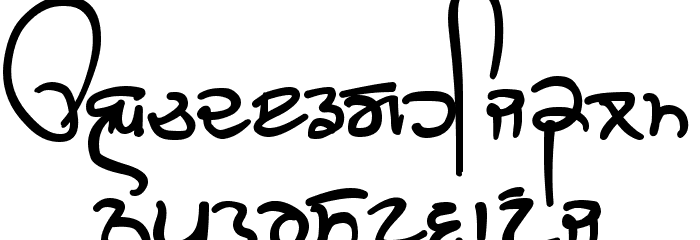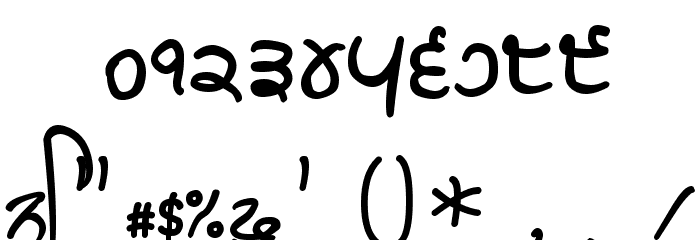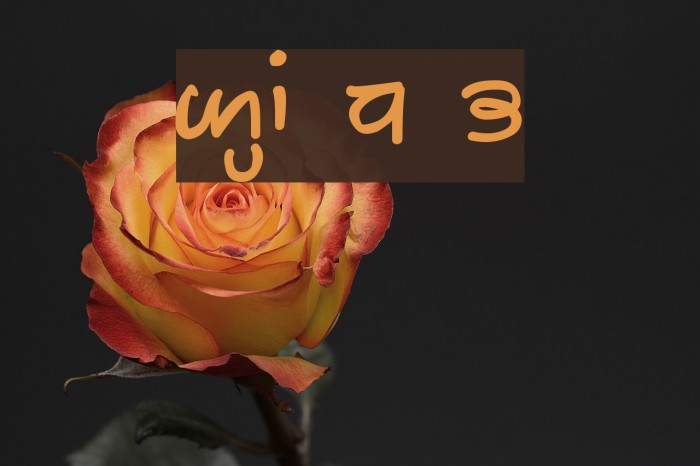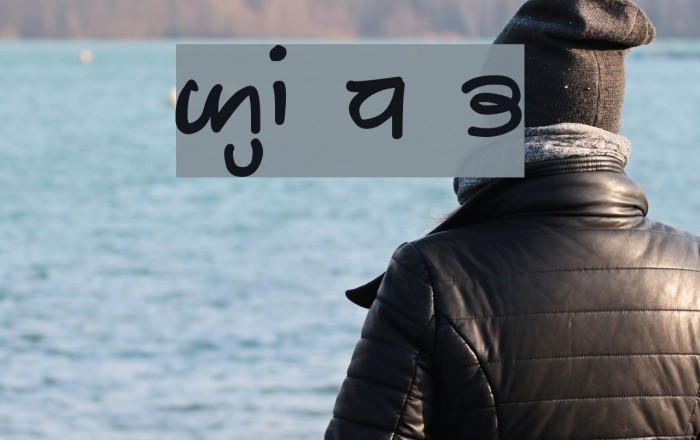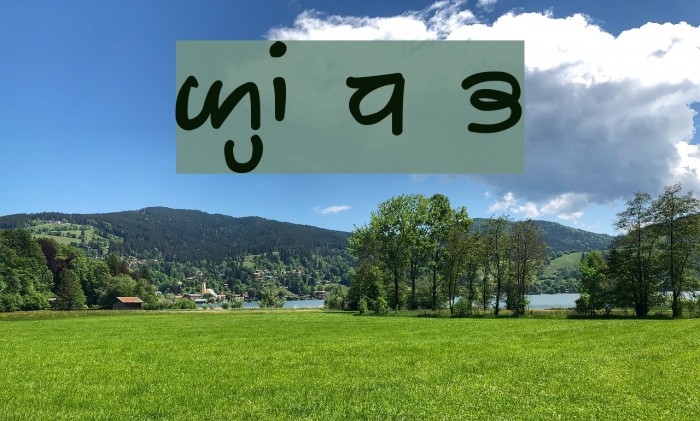
GHW Dukandar Bold Font
This font features a highly decorative and artistic style, characterized by its bold and expressive strokes. The letters exhibit a unique blend of curves and sharp angles, creating an eye-catching and dynamic appearance. The script-like quality of the characters suggests a handwritten influence, yet maintains a structured and cohesive form. The font's boldness is evident in its thick strokes, which vary in width, adding a sense of movement and fluidity. The spacing between characters is relatively tight, enhancing the compact and impactful nature of the text. This font's distinctive style makes it suitable for creative and expressive design projects where a strong visual impact is desired.
A bold, decorative font with expressive strokes and a script-like, artistic style.
- Proposed Projects: Ideal for branding, posters, artistic projects, and any design requiring a bold, creative touch.
- Character Spacing: Tight
- Use Case: Logos, Headlines, Artistic projects